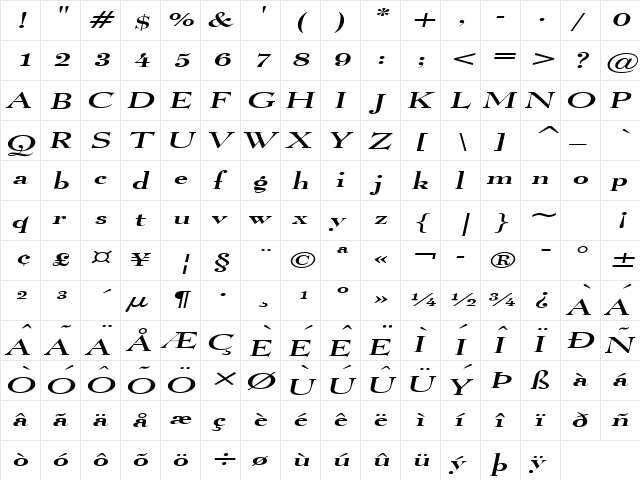
Luciano Extended Italic
Design Context for Luciano Extended Typeface
Luciano Extended takes a measured approach to typography — its balanced proportions and neutral character make it a reliable workhorse for both digital and print work. The slanted form adds forward momentum and visual energy.